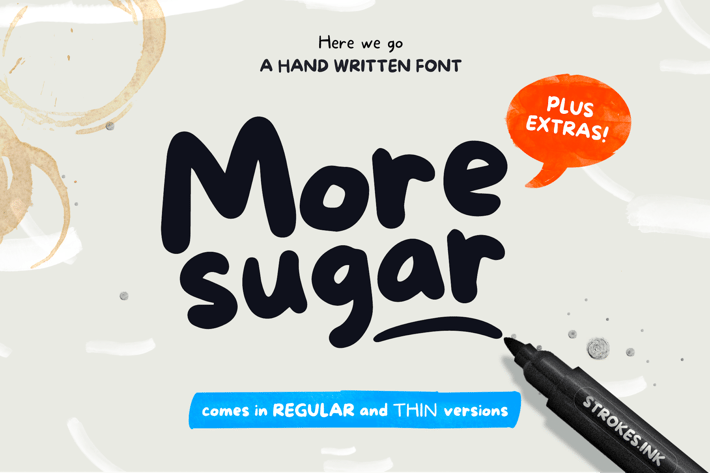
More Sugar Font
More Sugar Hand written font is a mixture of creative and simple. The natural stroke creates casual look & feel that will be perfect for various project. You can combine 2 styles in this font pack and create playful layout, solid headline, strong title, bold logo, and many more. Ofcourse you can also play arround with extra swashes & characters that included in this pack!.
This font will be best suitable for poster, logo, tshirt, merchandise, kids book, wall sign, and many more related projects.
What inside this font pack:
More Sugar Regular font. A bold and heavy yet playful font that good for large display and smaller paragraph.
More Sugar Thin font. This version will be cool for tagline and sub header. Also has good readability for all-caps paragraph.
* More Sugar Extras. Tons of swashes and characters to boost your creativity and make your project easier.